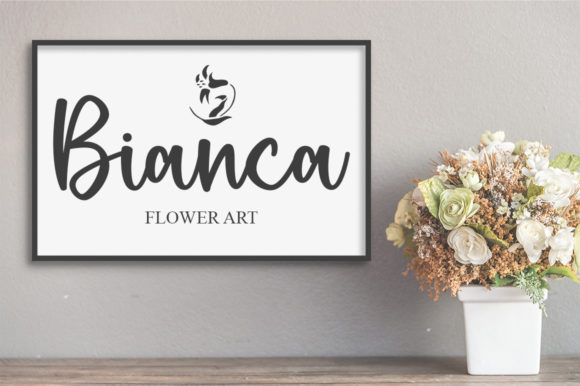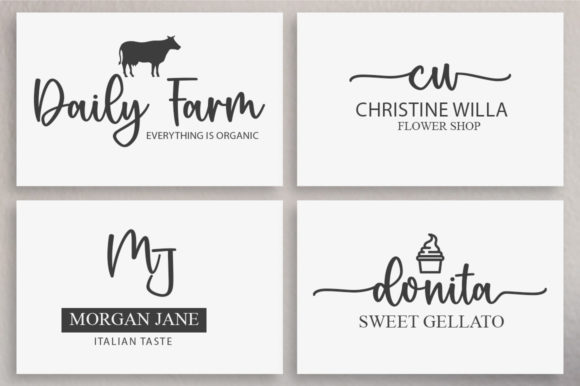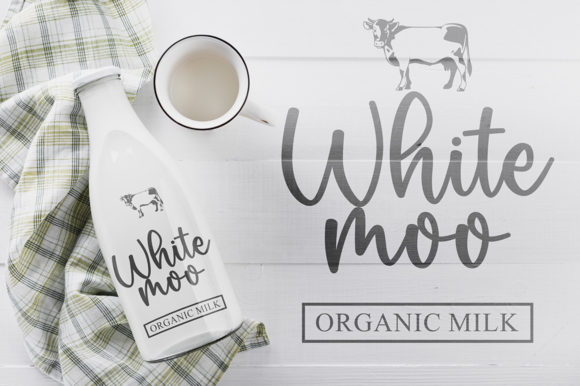
About Rasberry Font
“Rasberry” is a delicate and refined script font that exudes sophistication and elegance. This font’s graceful alternates and ligatures add a touch of style that makes it a perfect match for a wide range of projects.
The font’s delicate and refined script style exudes a sense of grace and class. Whether you’re working on projects that require an air of sophistication, a touch of elegance, or a stylish aesthetic, “Rasberry” can enhance your work with its carefully crafted and artistically pleasing appearance.
The font’s versatility is highlighted by its ability to complement various design projects. From creating exquisite wedding invitations to crafting high-end branding materials, the font can elevate your designs with its refined and stylish charm.
In essence, “Rasberry” is more than just a font—it’s a creative tool designed to elevate your design projects. Its delicate and refined script style, along with its versatile applications, make it a valuable asset for designers striving to create designs that are visually appealing, elegant, and effortlessly stylish, leaving a lasting impression.